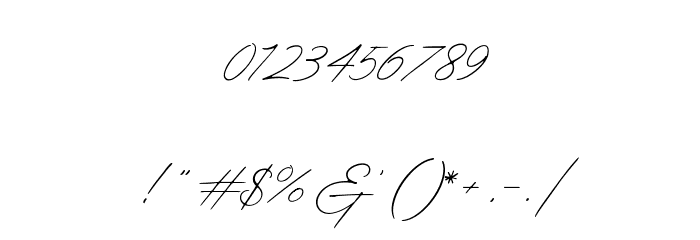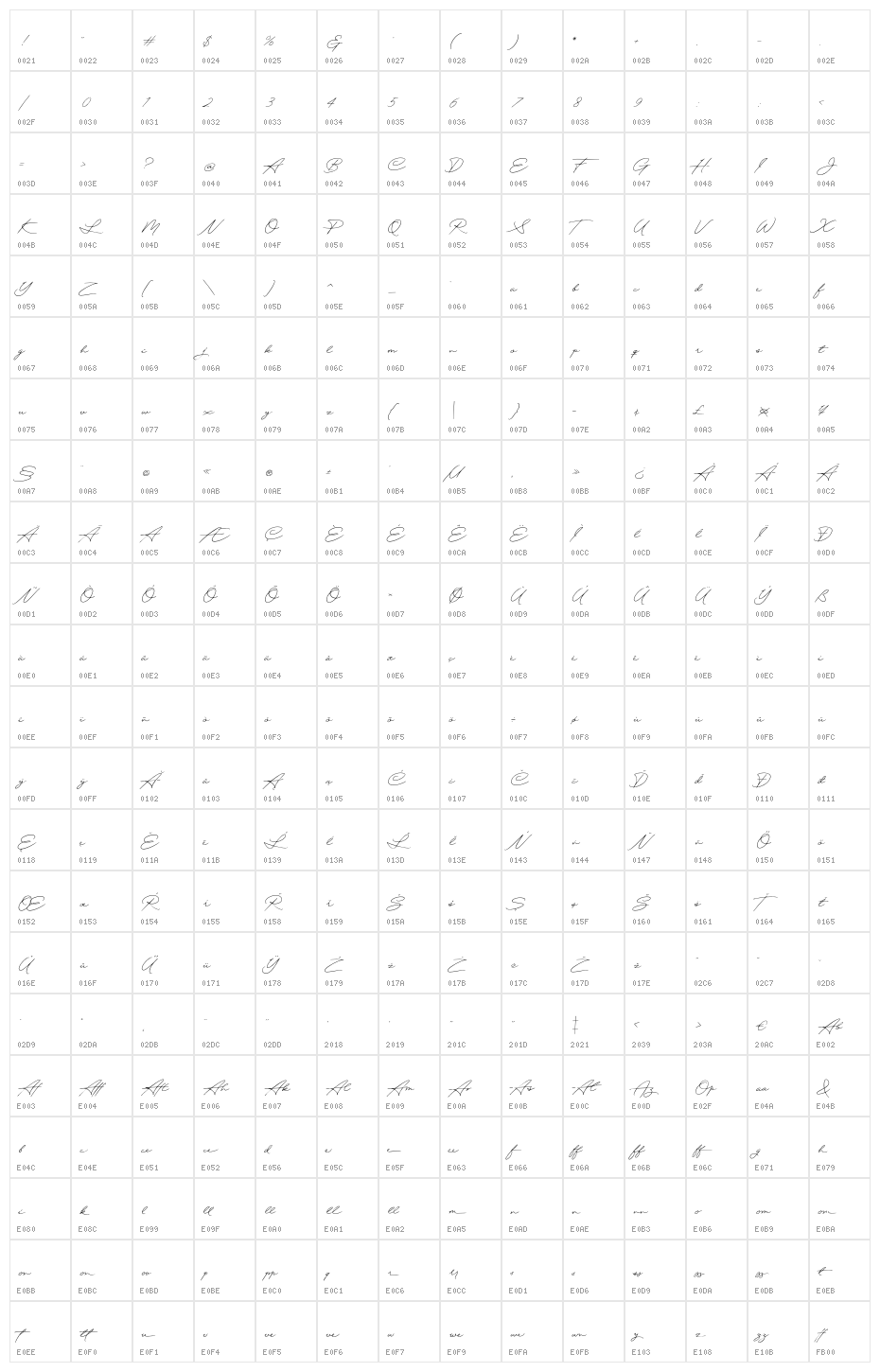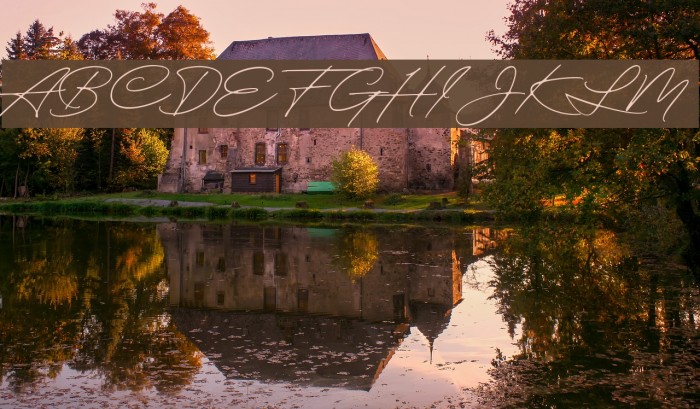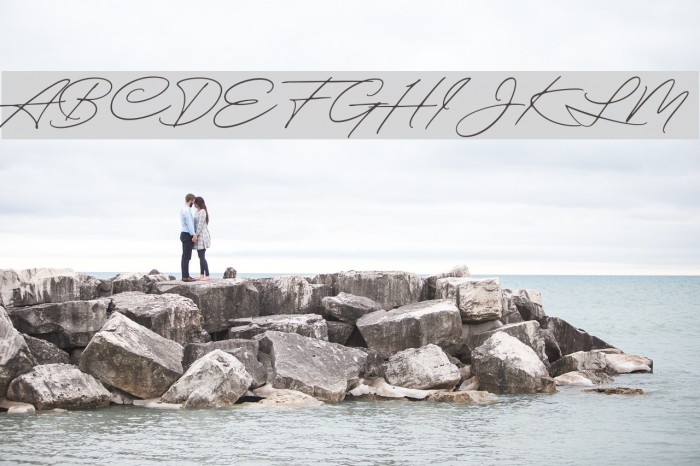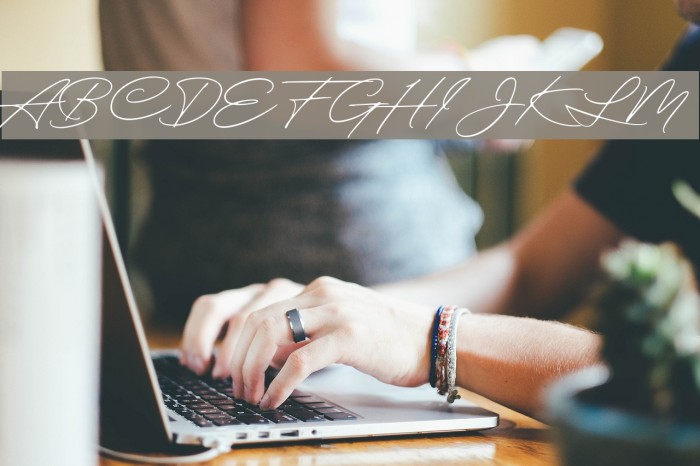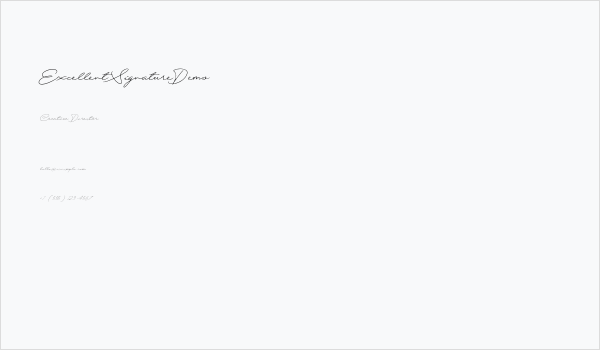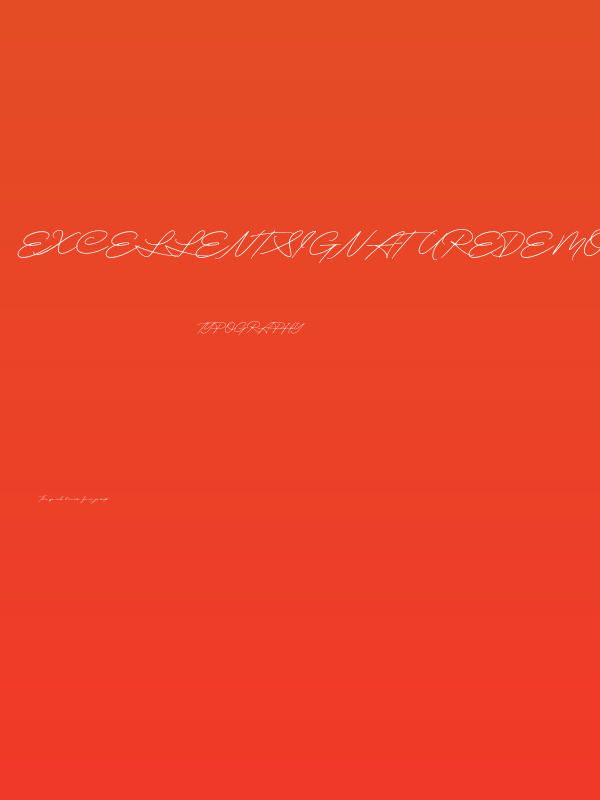
ExcellentSignatureDemo Font
ExcellentSignatureDemo Description
This elegant script font exudes a sense of sophistication and fluidity, characterized by its graceful, flowing strokes and delicate curves. The uppercase letters are ornate and slightly larger, providing a striking contrast to the more subtle lowercase characters. Each letter is meticulously crafted, with a consistent slant that enhances the handwritten appearance. The numerals and special characters maintain the same elegant style, ensuring a cohesive look across all text elements. This font is perfect for adding a personal touch to any project, with its refined and artistic flair.
| Overall Style | Elegant, Artistic |
| Proposed Projects | Ideal for wedding invitations, personal branding, elegant logos, and upscale packaging. |